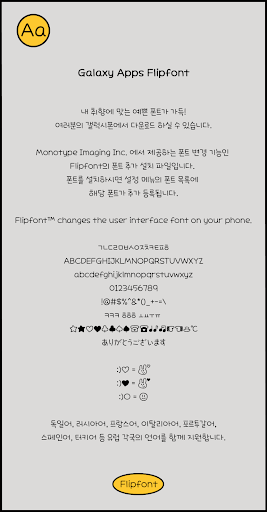
AaHelloChoding™ Korean Flipfont
HELLO GUYS! THIS IS MY SUPER DUPER HOLY CUTE HANDWRITTING. <3
If you enter :) and ♥, you can see a smiling rabbit heart. like this! :)♥
If you enter :) and ♡, you can see a smiling rabbit heart. like this! :)♡
If you enter :) and ○, you can see a smile emoji. like this! :)○